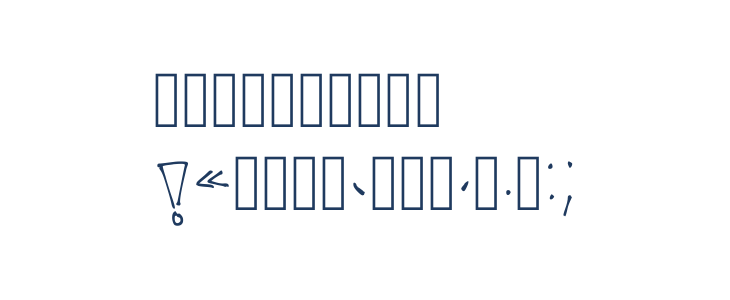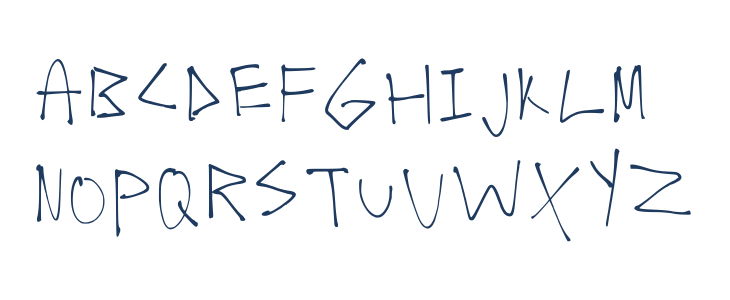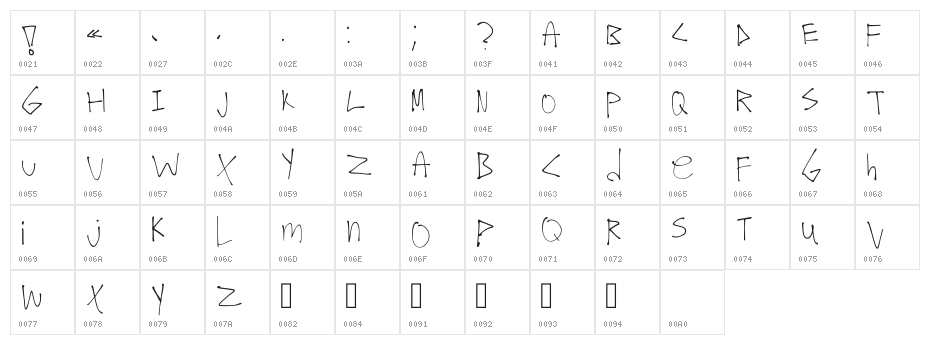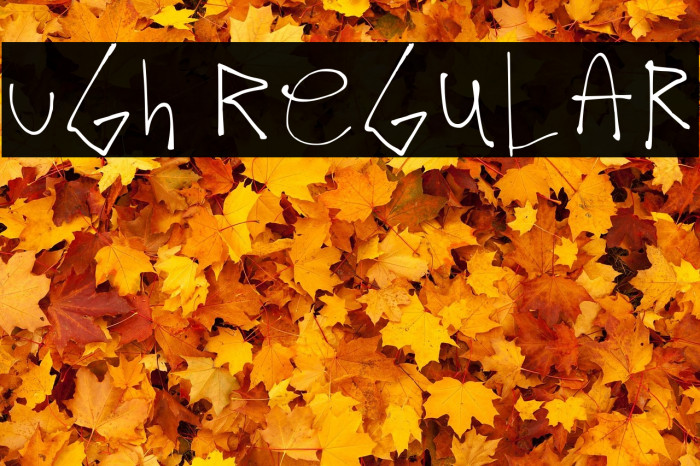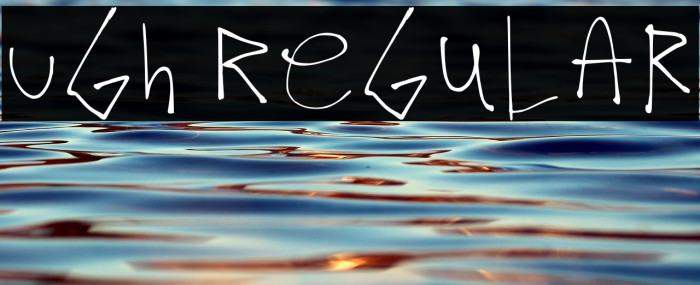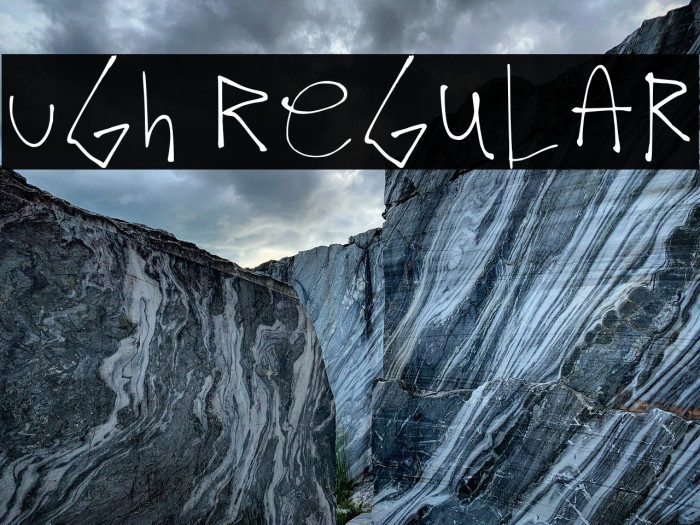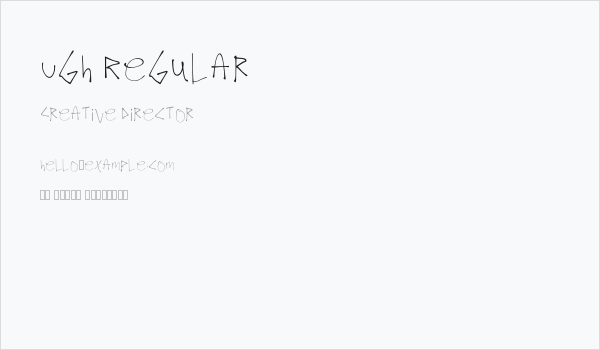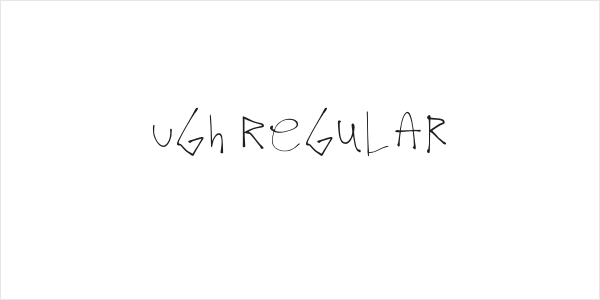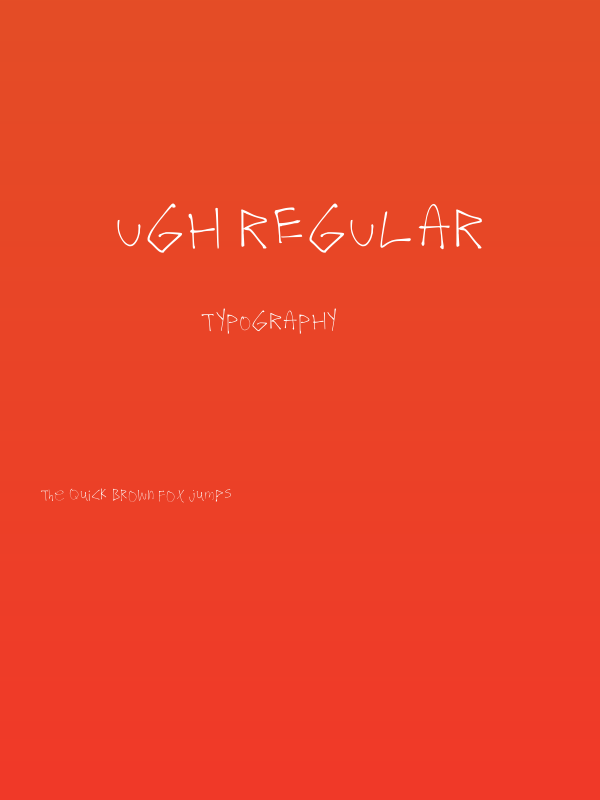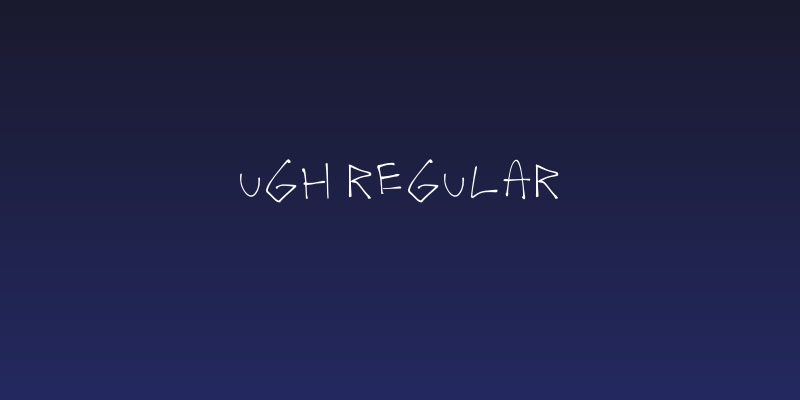
Ugh Regular Font
Ugh Regular Description
A playful, irregular handwritten font with uneven stroke thickness and quirky, casual letterforms. The characters have a loose, spontaneous feel, with varying heights and slants, mimicking natural handwriting.
| Overall Style | Playful, Casual, Decorative |
| Use Case | Headlines, Posters, Informal Notes, Creative Projects |
| Proposed Projects | ChildrenΓ’β¬β’s books, informal invitations, comics, creative posters, personal notes. |